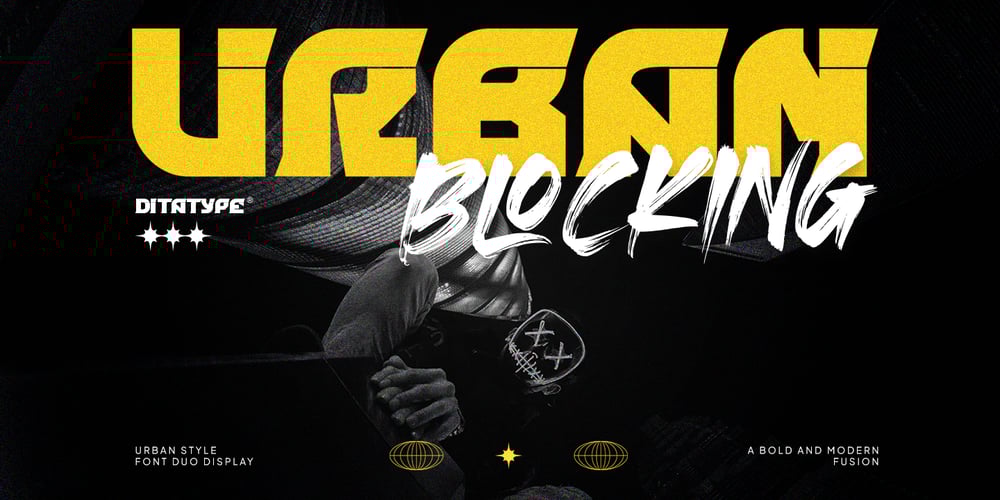
Urban Blocking Font Family was designed by Donis Miftahudin and published by Ditatype. Urban Blocking contains 3 styles and family package options. Urban Blocking is a dynamic duo font that combines the boldness of display fonts with the expressive strokes of brush fonts. The display font in Urban Blocking is made in uppercases and a bold weight, making a bold statement with its strong presence and commanding presence. Each letter is meticulously crafted with clean lines and sharp angles, creating a modern and urban aesthetic.Complementing the display font is the brush font, which also boasts uppercases and a bold weight. However, the brush font adds a touch of texture and spontaneity to the mix, with expressive strokes and rough edges that evoke the energy and vibrancy of urban life. Together, these two fonts in Urban Blocking create a harmonious balance between boldness and expressiveness. In addition, enjoy the features here.Features: Ligatures Stylistic Sets Splatter Multilingual Supports PUA Encoded Numerals and Punctuations Urban Blocking fits in headlines, logos, posters, flyers, branding materials, greeting cards, print media, editorial layouts, and many more designs. Find out more ways to use this font by taking a look at the font preview.Thanks for purchasing our fonts. Hopefully, you have a great time using our font. Feel free to contact us anytime for further information or when you have trouble with the font. Thanks a lot and happy designing.